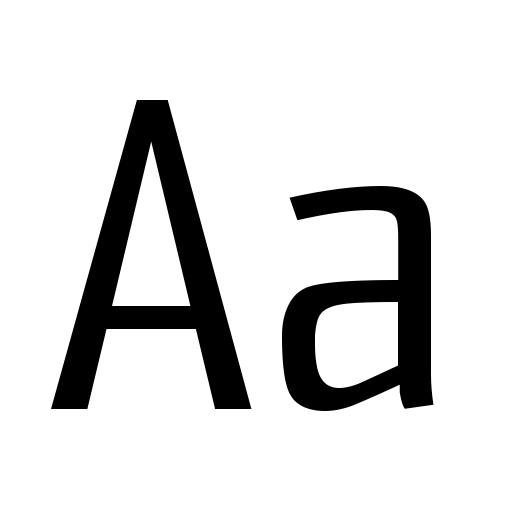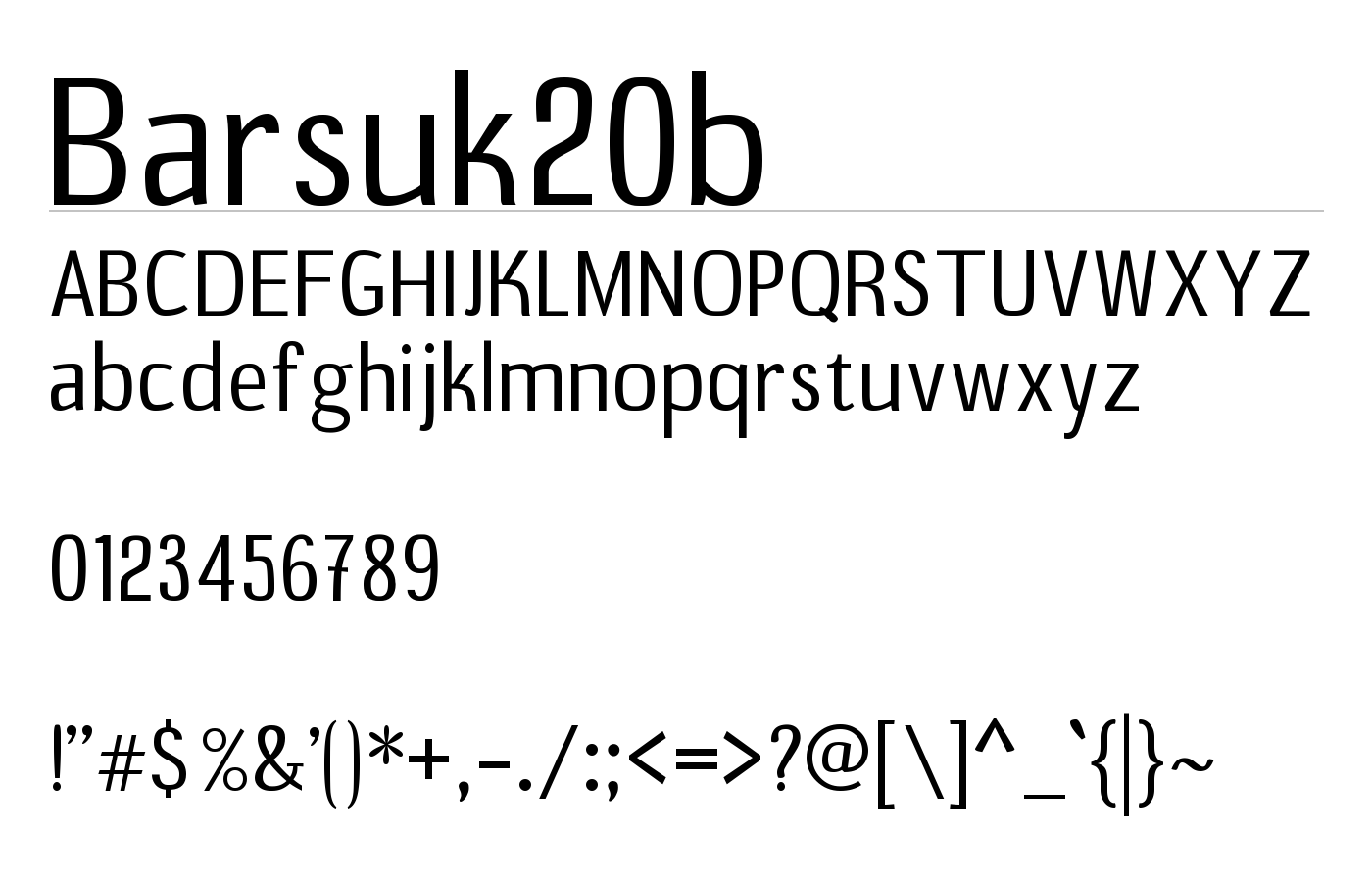
B20 Sans is a tall, narrow sans serif font with a clean, modern look and a slightly condensed width that gives it a distinctive, contemporary feel. Its consistent stroke weight and minimal contrast create a sharp, geometric style with unique letterforms like the single-story 'g' and the straight, unbracketed terminals. This font works well for headlines, branding, and editorial uses where clarity and a touch of sophistication are needed without sacrificing readability.
B20 Sans Font
About B20 Sans Font